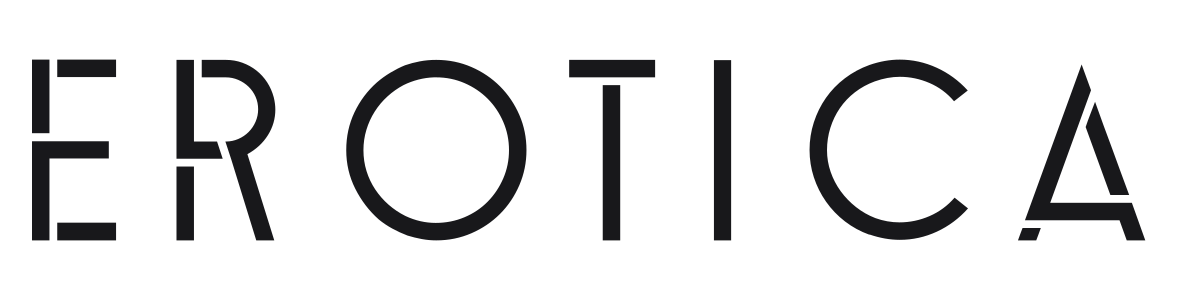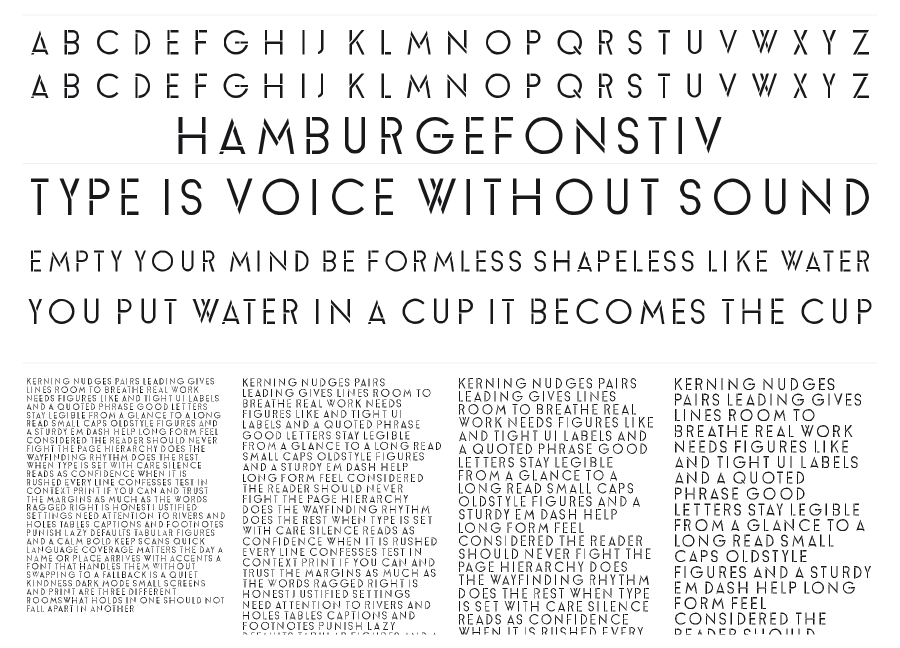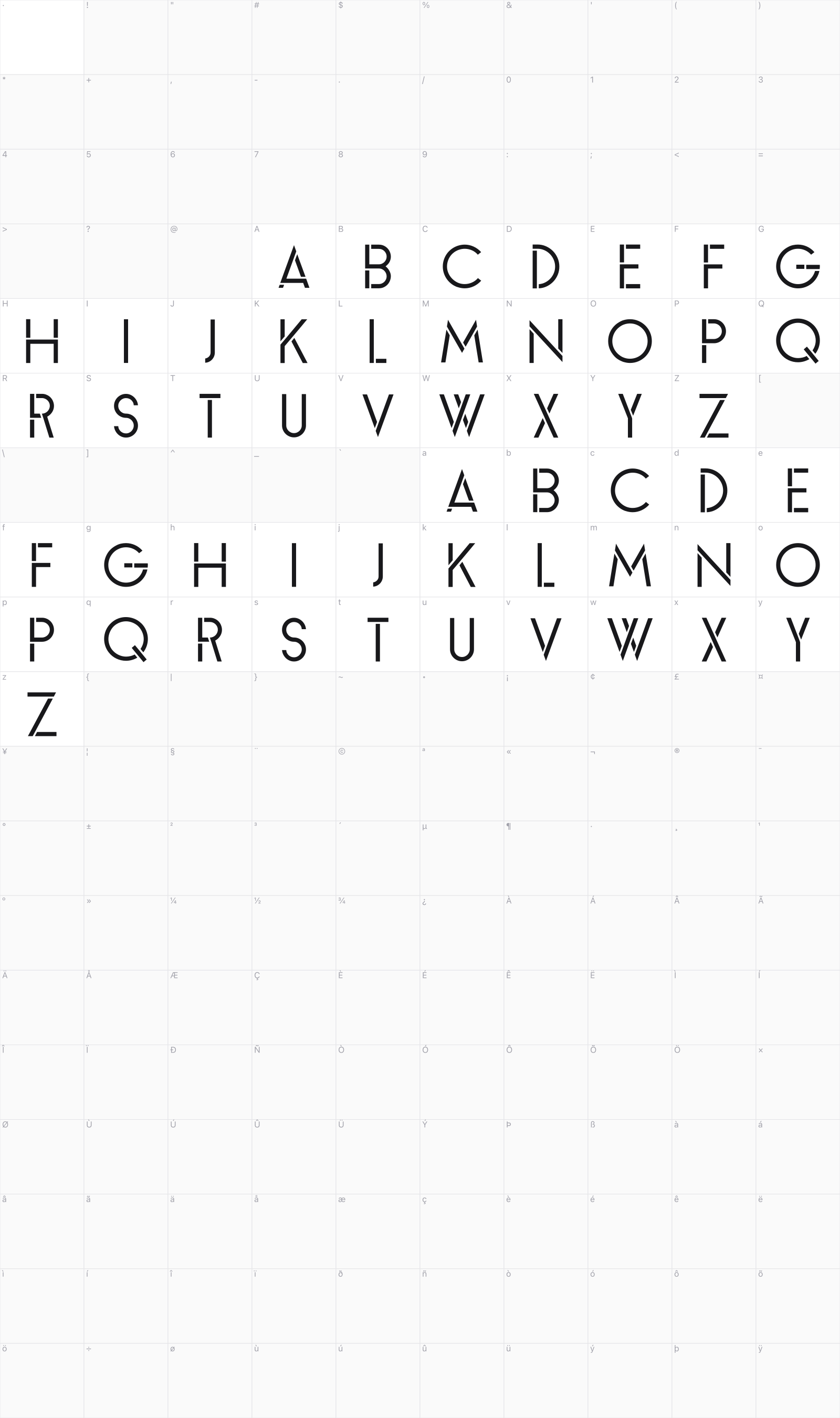
Erotica
Erotica is a thin geometric stencil sans with deliberate ink-trap-style cuts through its strokes, giving each character a fragmented, architectural quality. The wide letter spacing and near-monoweight construction keep it feeling cool and restrained rather than decorative. It occupies a sharp sweet spot between art-deco heritage and contemporary minimalist fashion typography.